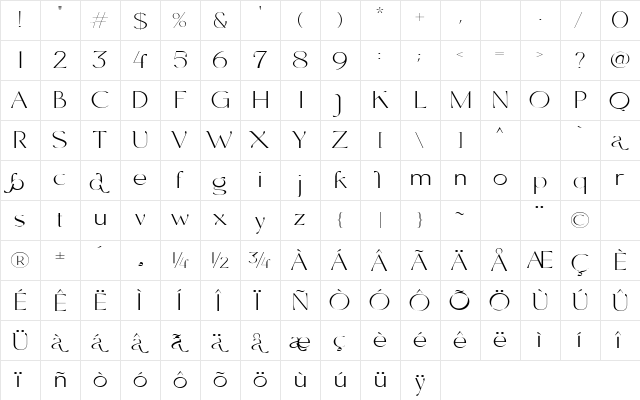
allright Regular
Design Context for allright Typeface
allright is a composed and adaptable typeface that performs quietly and consistently across a wide range of design contexts.